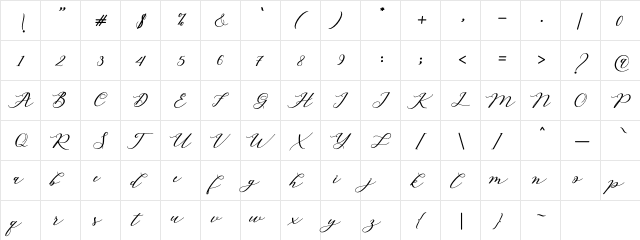
Autines Script Regular
| Foundry | Musafir LAB |
Design Context for Autines Script Typeface
Autines Script flows with the natural rhythm of handwritten lettering, making it ideal for designs that call for warmth and personal expression.
Font Pairing: Combine Autines Script with a simple geometric sans for maximum contrast — the tension between flowing curves and clean structure is a classic typographic pairing.
Pro Tip: Use Autines Script for short runs of text — names, titles, or taglines. Extended body copy in script faces tires the eye quickly.